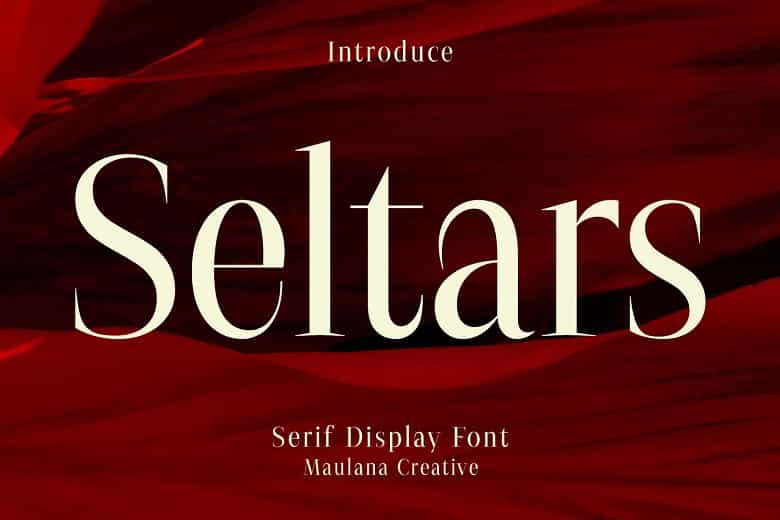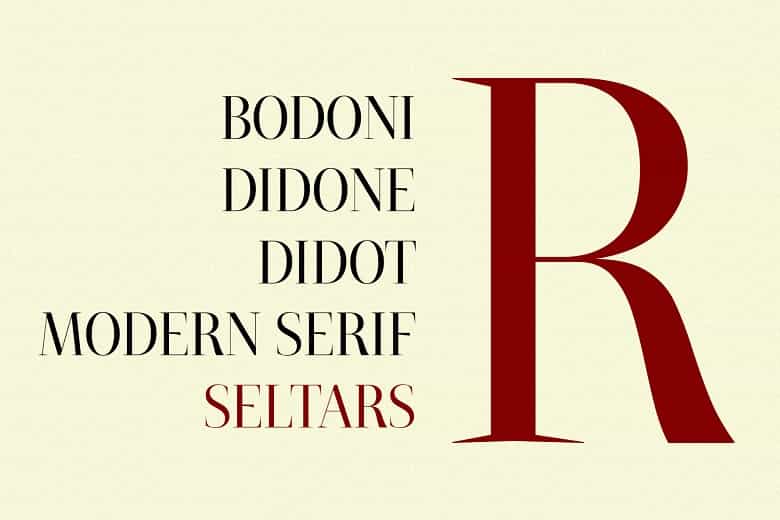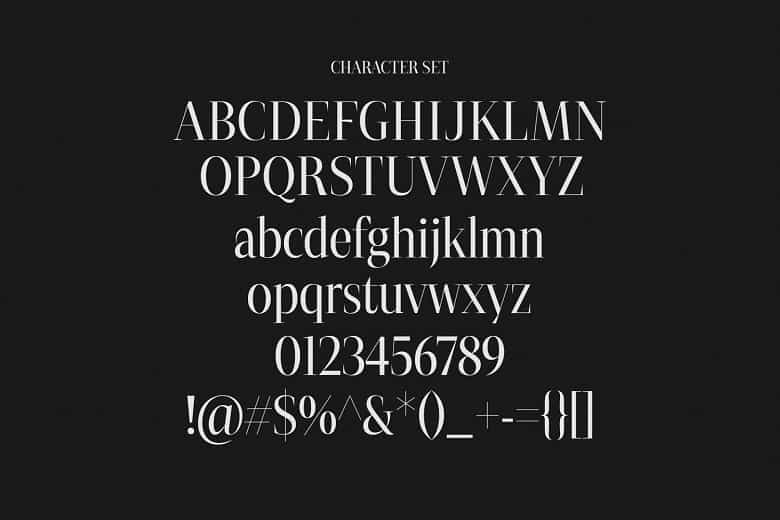
Seltars is a fresh serif display font that has incorporation of the classical designs and the modern designs. This font is a contemporary serif font that has crisp outlines, flowing curves and strong corners to give it a professional and elegant appearance which is ideal for use in upscale branding, luxurious packaging and magazine design.